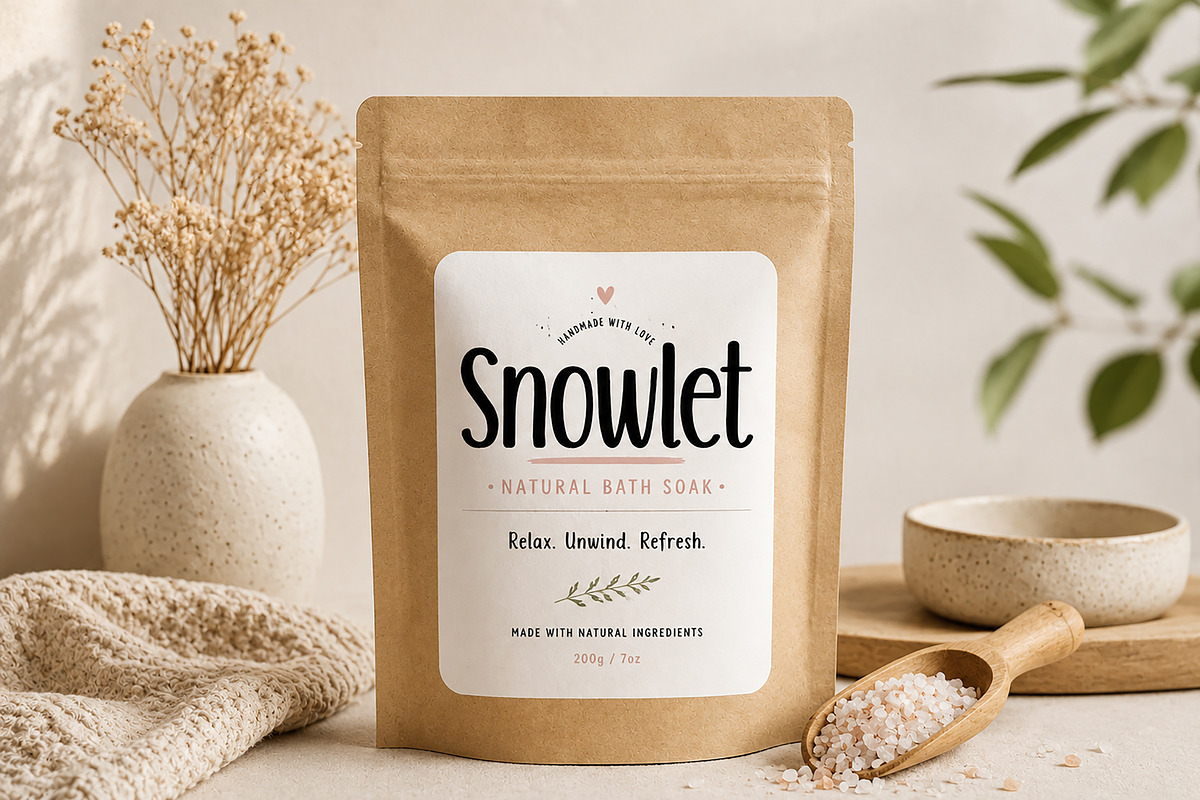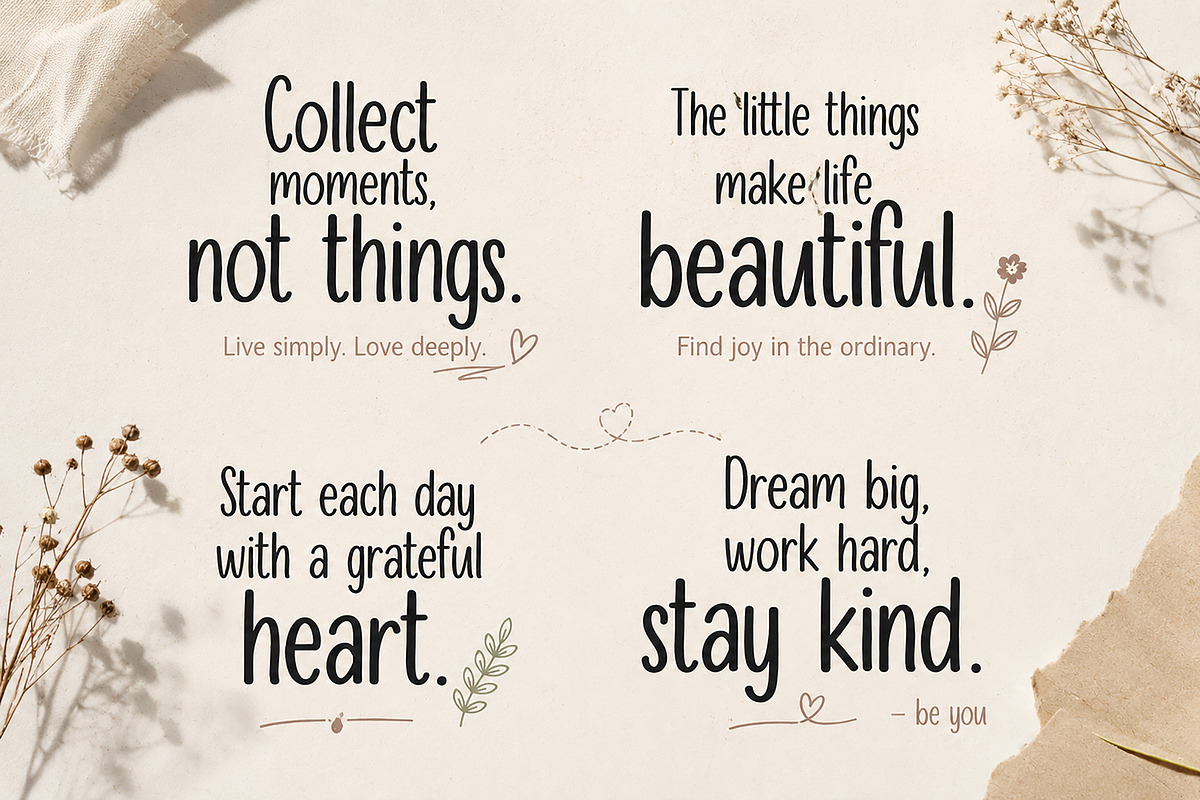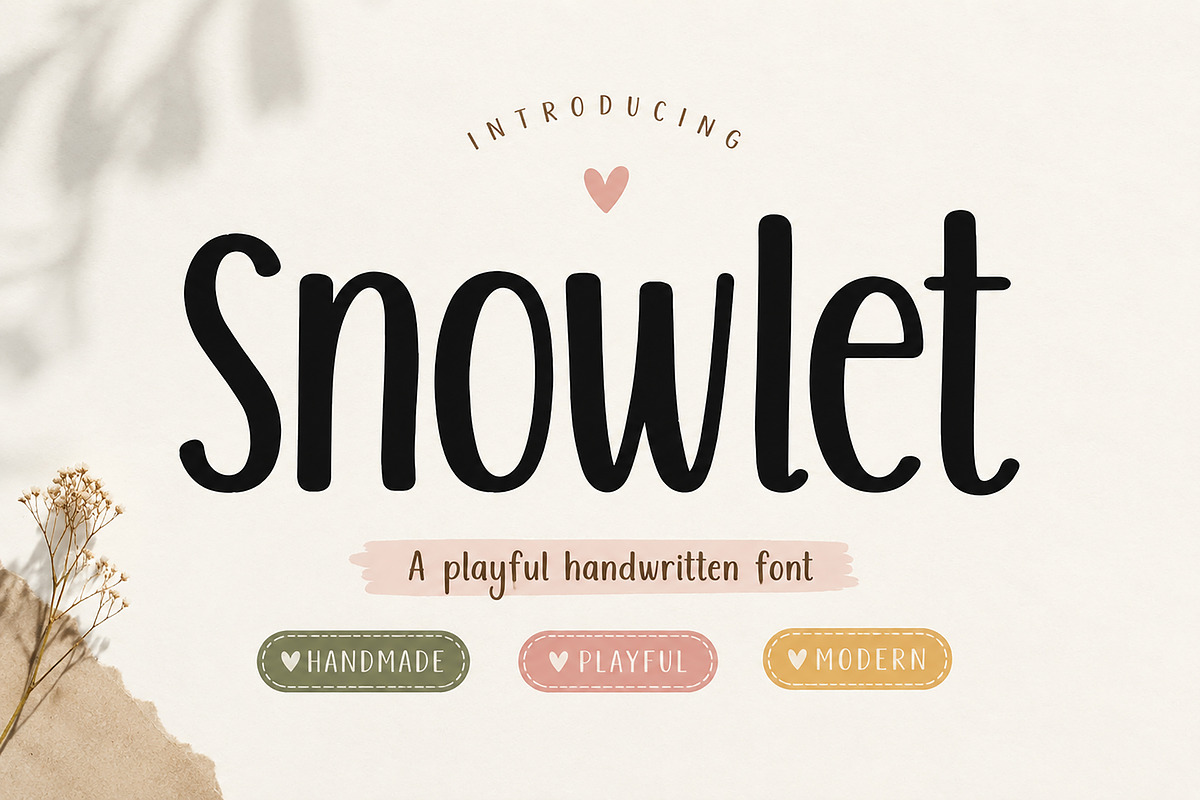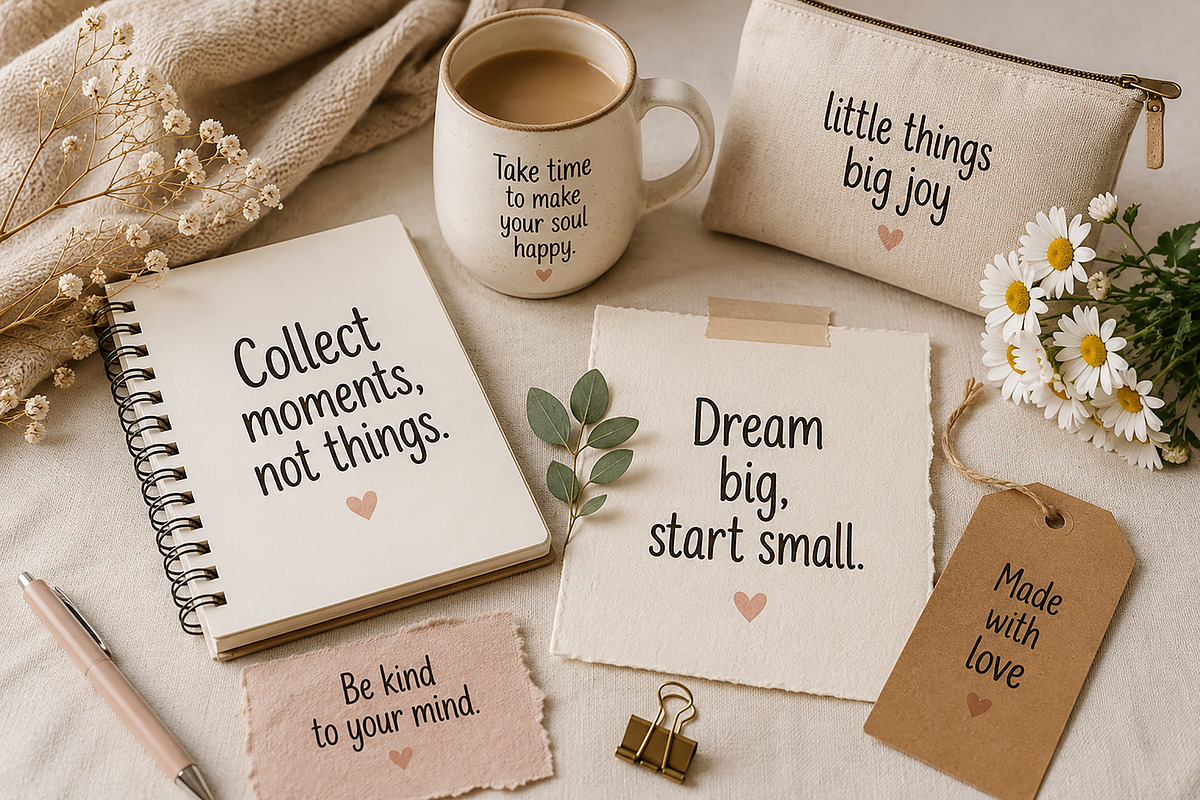
Snowlet
Snowlet – Playful Handwritten Font
Snowlet is a playful handwritten font with a soft, natural, and charming feel. Designed to bring warmth and personality into your creative projects, this font is perfect for branding, packaging, quotes, invitations, social media, and handmade product designs.
Its clean handwritten strokes, tall letterforms, and organic flow make it highly versatile for both modern and cozy aesthetic projects.
Introducing Snowlet — A Playful Handwritten Font
Snowlet is a modern handwritten font crafted with a natural, playful, and minimalist touch. With its smooth curves, tall proportions, and handcrafted character, Snowlet adds warmth and authenticity to any design.
Perfect for creators who love soft, organic, and lifestyle-inspired typography.
Whether you're designing product packaging, logos, social media posts, greeting cards, planners, or branding materials, Snowlet helps your work feel personal, friendly, and beautifully handmade.
Snowlet is perfect for:
• Branding & Logo Design
• Product Packaging
• Social Media Graphics
• Quote Designs
• Greeting Cards
• Wedding Invitations
• Notebook Covers
• Posters
• Craft Branding
• Handmade Product Labels
• Kids Branding
• Journaling Designs
Snowlet is designed to create a cozy, modern, and natural visual experience—making it a perfect choice for brands that want to feel warm, approachable, and creative.